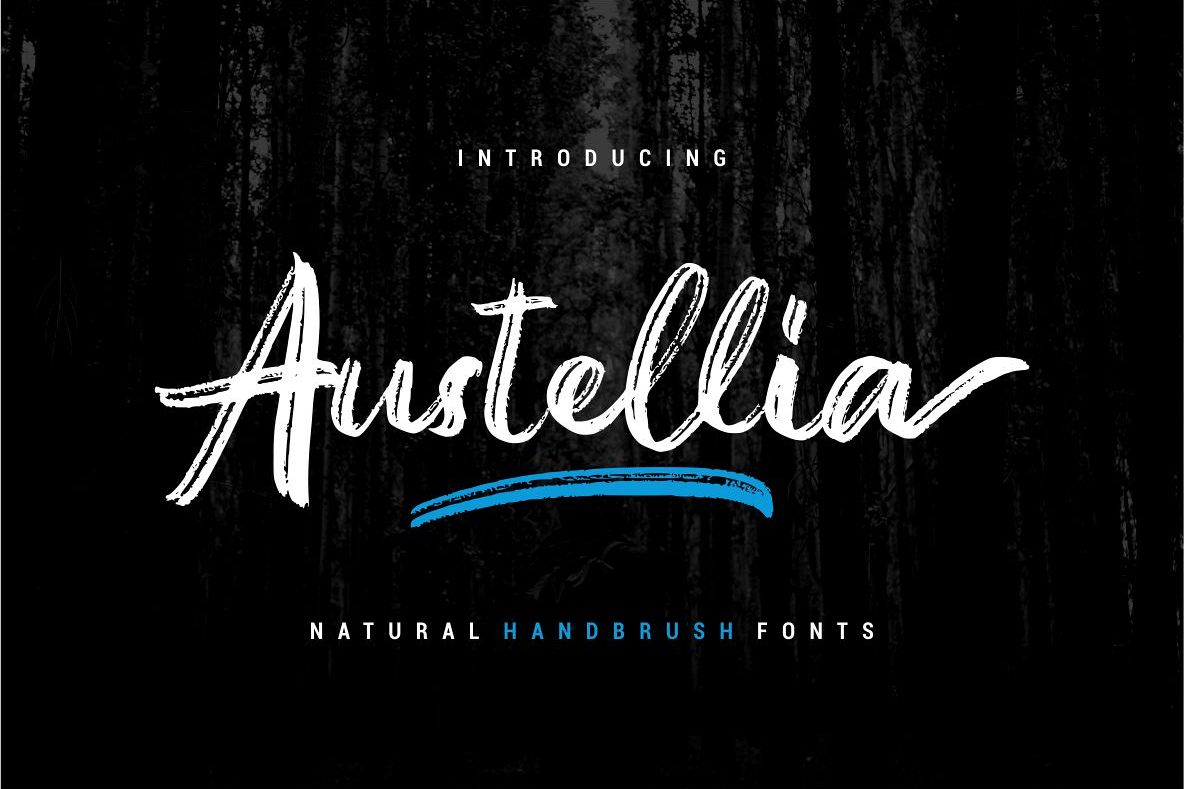
Austellia - Handbrush Font
Introducing our new brush font: AUSTELLIA
Austellia is made with natural handbrushes. With the unique Opentype in it and the ligature will add aesthetic value to your design product. Available in this file are Austellia Fonts and also Swash which you can unite into an amazing design. You can even use the Opentype feature without the help of any special software, whether it's in Adobe Illustrator, Corel Draw, or Photoshop.
• Versatile for branding, headline, or printing product
• Detailed dry brush